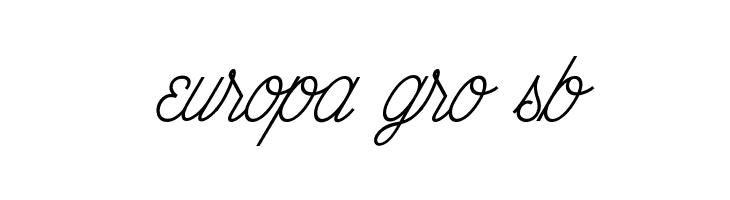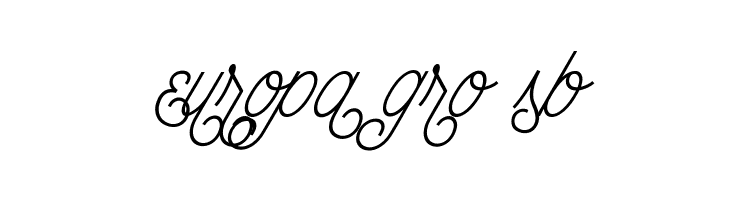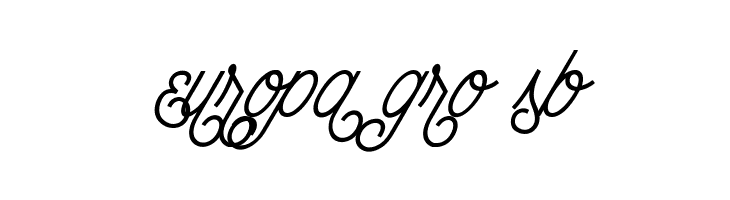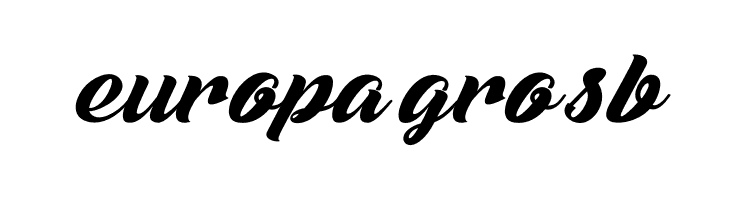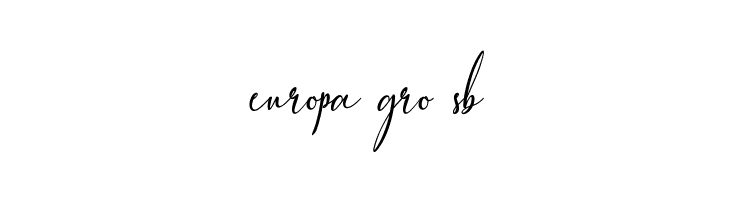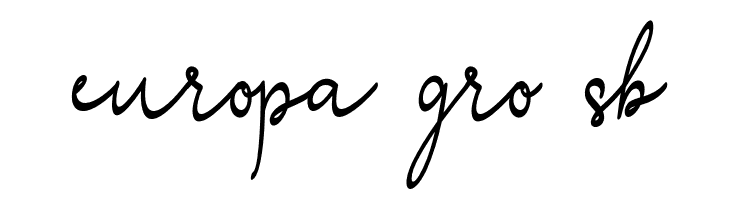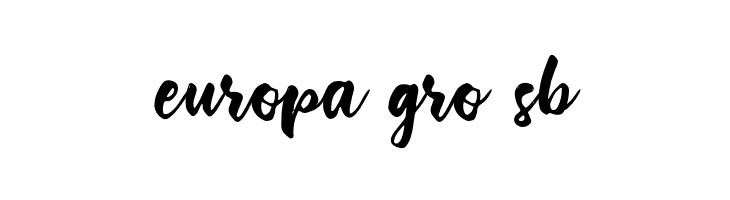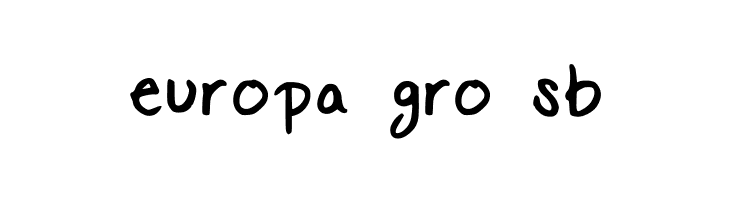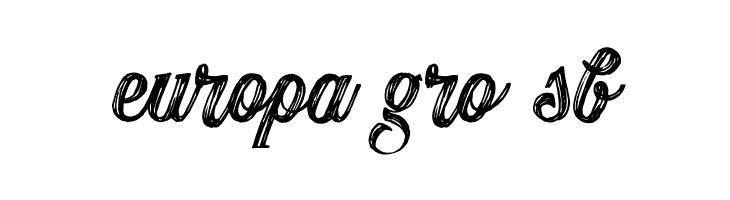
An elegant script font with flowing cursive style and intricate swashes.
A flowing, cursive script font with elegant, interconnected letters.
A flowing, elegant script font with interconnected letters and bold strokes.
An elegant, flowing script font with a natural handwritten style.
An elegant, flowing script font with a sophisticated and graceful appearance.
An elegant, flowing script font with thin strokes and graceful curves.
An elegant and sophisticated cursive script font with flowing, intricate designs.
A graceful and elegant script font with flowing cursive letters.
An elegant, flowing script font with interconnected letters and graceful curves.
An elegant script font with flowing, interconnected letters and sophisticated curves.
A casual, flowing script font with a natural handwritten style.
An elegant and decorative script font with intricate swirls and loops.
A bold, expressive script font with a hand-painted, brush-like appearance.
An elegant and sophisticated script font with flowing curves and ornate details.
A bold, expressive script font with a hand-painted, artistic style.
A graceful script font with elegant loops and high contrast strokes.
An elegant, flowing script font with ornate flourishes and smooth cursive lines.
A playful, whimsical script font with a hand-drawn, cursive style.
A bold and dynamic script font with expressive, fluid strokes.
A lively and dynamic script font with flowing, cursive letterforms.
A graceful and elegant script font with flowing, interconnected letters.
A flowing, cursive script with elegant, connected characters and dynamic stroke variations.
A bold, smooth script font with flowing curves and strong strokes.
A playful, casual script font with a handwritten feel.
An ornate and decorative script font with bold strokes and intricate flourishes.
A whimsical and fluid script font with a hand-drawn appearance.
A graceful and fluid handwritten script font with elegant, flowing letters.
An elegant and fluid script font with interconnected, graceful strokes.
( LJ Design Studios - www.ljdesignstudios.com )
A dynamic and flowing script font with elegant cursive letterforms.
( Letrasupply Typefoundry - letrasupply.bigcartel.com )
An elegant and sophisticated script typeface with flowing, cursive letters and ornate uppercase characters.
( Mikrojihad Font - fontbundles.net/mikrojihad )
A condensed, elegant script font with interconnected, flowing characters.
( Mikrojihad Font - fontbundles.net/mikrojihad )
An elegant, flowing script font with intricate, condensed letterforms.
A bold, cursive script font with high contrast and elegant flow.
An elegant, bold script font with intricate, flowing characters.
A graceful, slanted script font with ornate uppercase and streamlined lowercase letters.